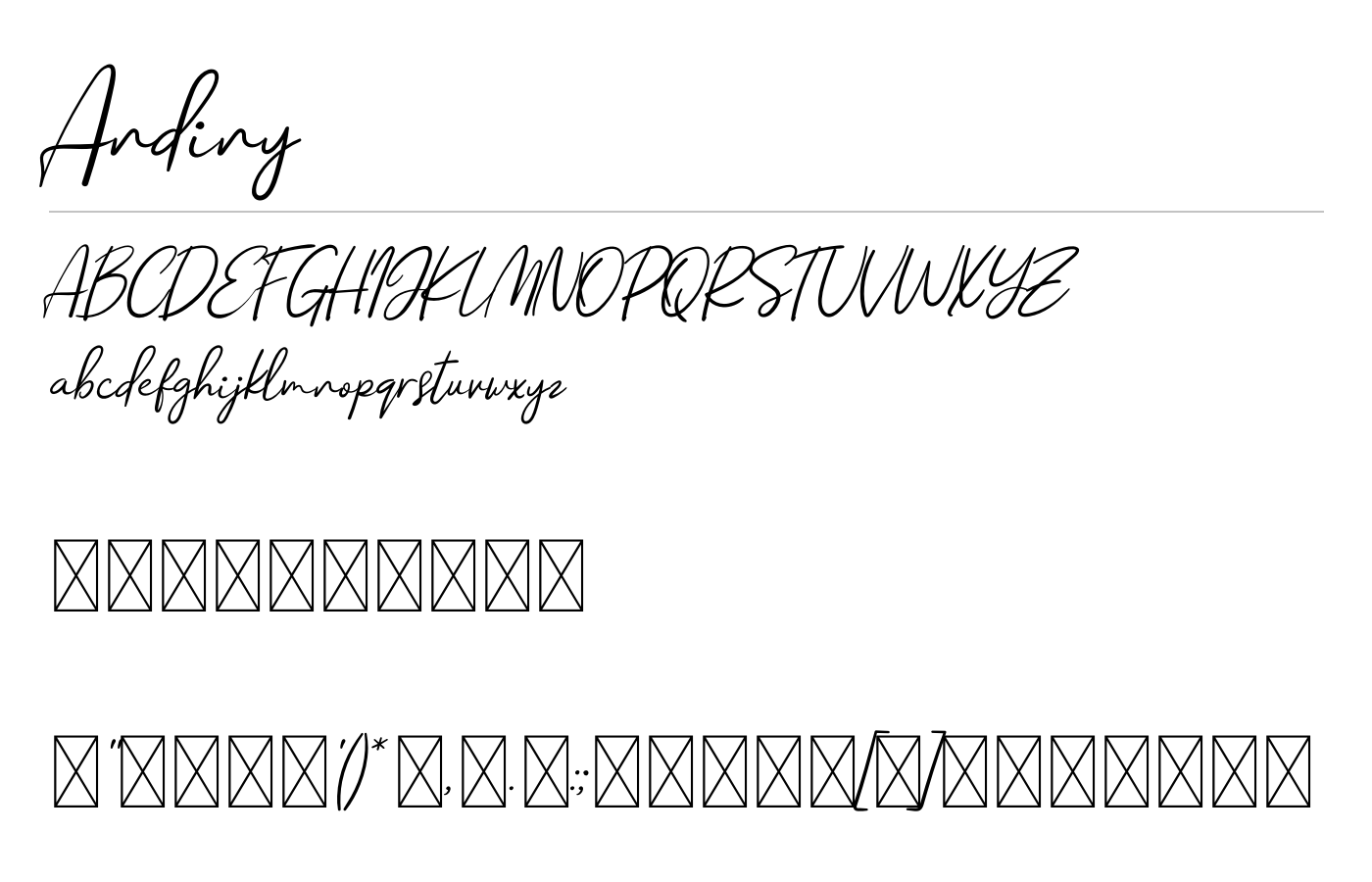
Andiny is a delicate and elegant handwritten script font featuring slender, flowing strokes with a moderate x-height that enhances readability while maintaining a personal, artistic touch. Its graceful letterforms, combining sharp and smooth curves, work beautifully for branding, invitations, and editorial projects where a sophisticated yet approachable feel is desired. This font shines in creative contexts that call for a stylish, modern script with a friendly and expressive personality.
Andiny Font
About Andiny Font